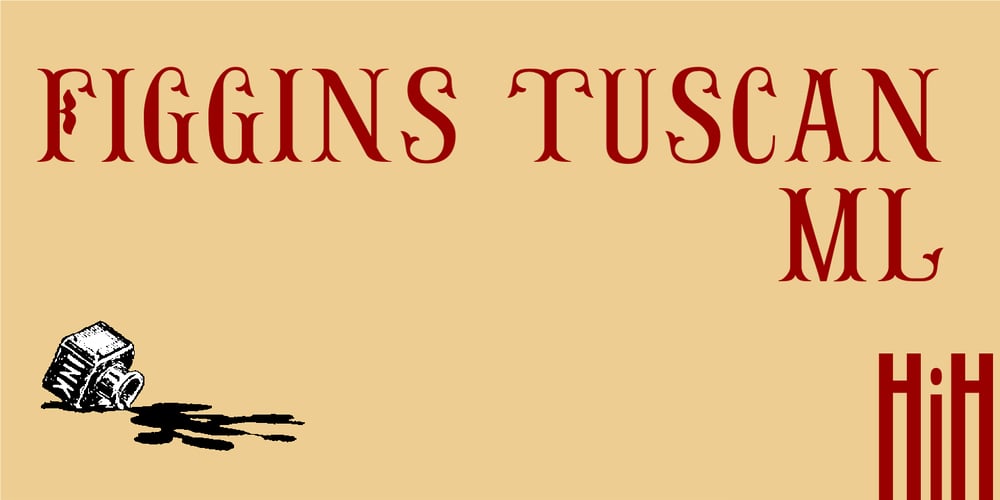
Figgins Tuscan
Figgins Tuscan font
Figgins Tuscan Font Family was designed by Vincent Figgins and published by HiH. Figgins Tuscan contains 1 styles and family package options. Early in the 19th century, foundries began releasing a variety of decorated ornamental letters based on the Tuscan letterform. Fancy Tuscan letters quickly became so popular, they eventually came to represent the cluttered extremes of Victorian design. Foundries competed with each other to produce most extravagantly decorated letterforms. As often happens, success turned to excess. What is often overlooked is the long history of the Tuscan style. Early examples have been traced back to ancient Rome. Indeed, the characteristic bifurcation may have represented a fishtail to the early Christians, thus sharing in the roll of symbolic identification played by the simple drawing of a fish as a whole. Later. trifurcation was developed as an alternate termination, followed by loops, full fishtails, curls, hooks and other fancy variations. Nicolete Gray provides an extensive history in her Appendix One of NINETEENTH CENTURY ORNAMENTED TYPEFACES. According to Gray, the first metal typeface based on the Tuscan form was the Ornamented of 1817 by Vincent Figgins of London. Thorowgood followed suit in 1821, Fry in 1824 and Caslon in 1830. Each was to re-visit the form many times during the Victorian era. Here we present our interpretation of what Figgins might have produced in a basic, plain Tuscan form – free of the decorative additions. We are pretty safe here because Figgins was very creative. He explored many of the terminal variations listed above and combined them with different decorative devices to produce a constant stream of new faces to meet the demands of the marketplace. Figgins Tuscan ML represents a major extension of the original release, with the following changes: 1. Added glyphs for the 1250 Central Europe, the 1252 Turkish and the 1257 Baltic Code Pages. There are also a few glyphs for Anglo-Saxon, Gaelic and Old Gaelic. Total of 355 glyphs. 2. Added OpenType GSUB layout features: aalt, ornm and liga ˜ with total 34 lookups. 3. Added 351 kerning pairs. 4. Redesigned several glyphs: the comma, quotes, brackets, braces, acute accent, and grave accent. 5. Revised vertical metrics for improved cross-platform line spacing. Please note that some older applications may only be able to access the Western Europe character set (approximately 221 glyphs). The zip package includes two versions of the font at no extra charge. There is an OTF version which is in Open PS (Post Script Type 1) format and a TTF version which is in Open TT (True Type)format. Use whichever works best for your applications.